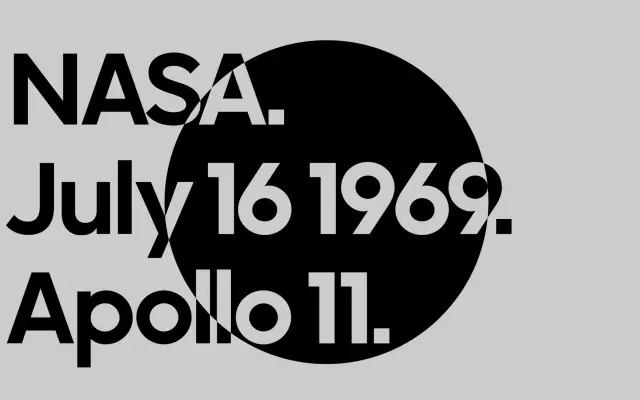
F37 Moon
A clean, compact geometric sans with a big x-height and short ascenders, fourteen styles plus Cyrillic, Greek and Arabic.
F37 Moon is a geometric sans built on a big x-height and short ascenders and descenders, giving a compact, bold feel that F37 sell as ultra-clean and ultra-minimalist. Fourteen styles run across Thin, Light, Regular, Demi, Bold, ExtraBold and Black with matching italics, and the family extends into Moon Arabic, Cyrillic and Greek so it can anchor a multilingual identity. Sits well in tech, fashion, architecture and any minimalist editorial system where you want a calm, low-personality geometric voice.
F37 describe Moon as having a big x-height for an ultra-clean, ultra-minimalist look, with short ascenders and descenders giving a compact, bold feel. A fourteen-style geometric sans with seven weights from Thin to Black plus matching italics, with Cyrillic, Greek and Arabic extensions.